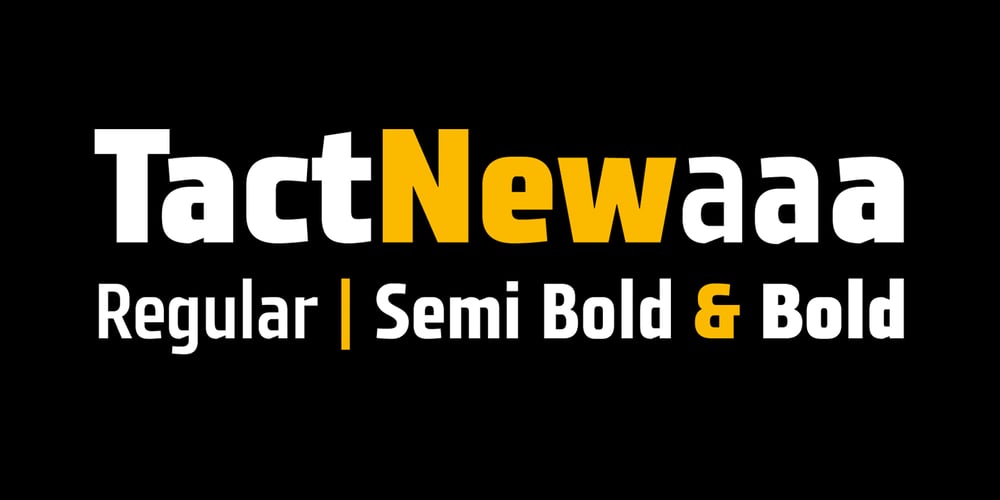
Tact New Font Family was designed by Dragan Pešić and published by Pesic. Tact New contains 3 styles and family package options. Tact New family is geometrically sans serif font, with 3 weights, condensed looks glyphs, with an alternative glyph set to improve its use in different graphic contexts. It is suitable for use in the fields of science, art, architecture, urban planning, techniques, electronics, advertising, posters, corporate designs, futuristic themes, sport, film, computers, phones, video games, publishing… Contains all Latin and Cyrillic glyphs.